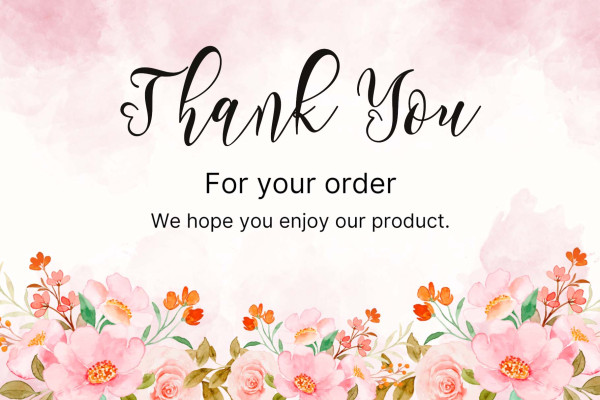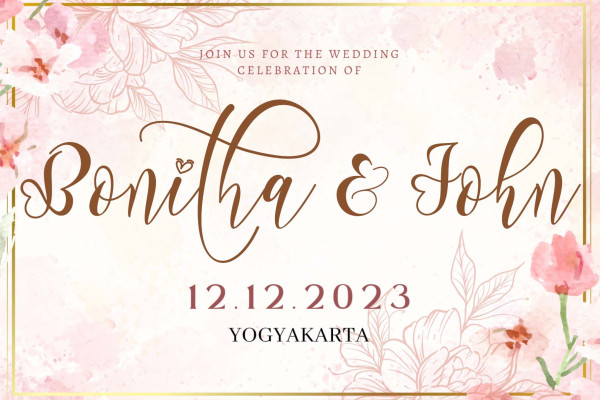
Romellin Font
Romellin Font is a very pretty handwritten font with heart shapes in the letters. Equipped with uppercase, lowercase, ligatures, numerals, punctuation, and multilingual support It is suitable for weddings, engagements, valentines, back to school, photography, Christmas, parties, and others.